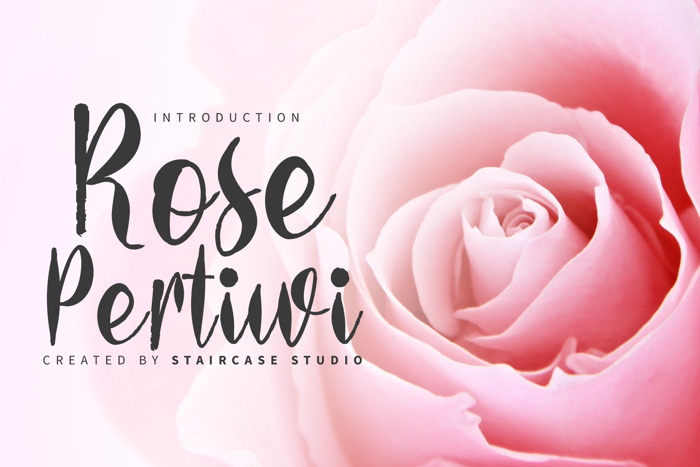
Rose Pertiwi Font
Rose Pertiwi with script font styles. A collection of letters and numbers suitable your projects also great for Logotype, Branding Design, Logo Design, Digital Lettering Arts, T-Shirt/Apparel, Poster, Magazine, Signs, Advertising Design, and any design needs.